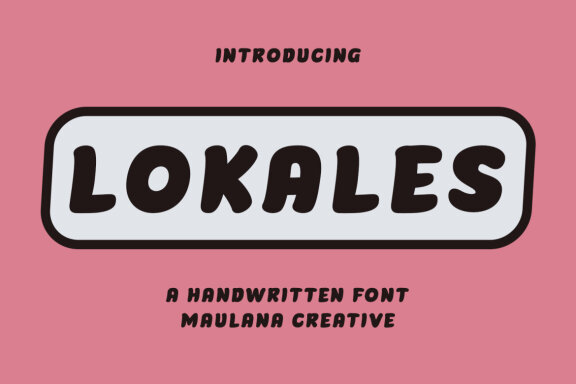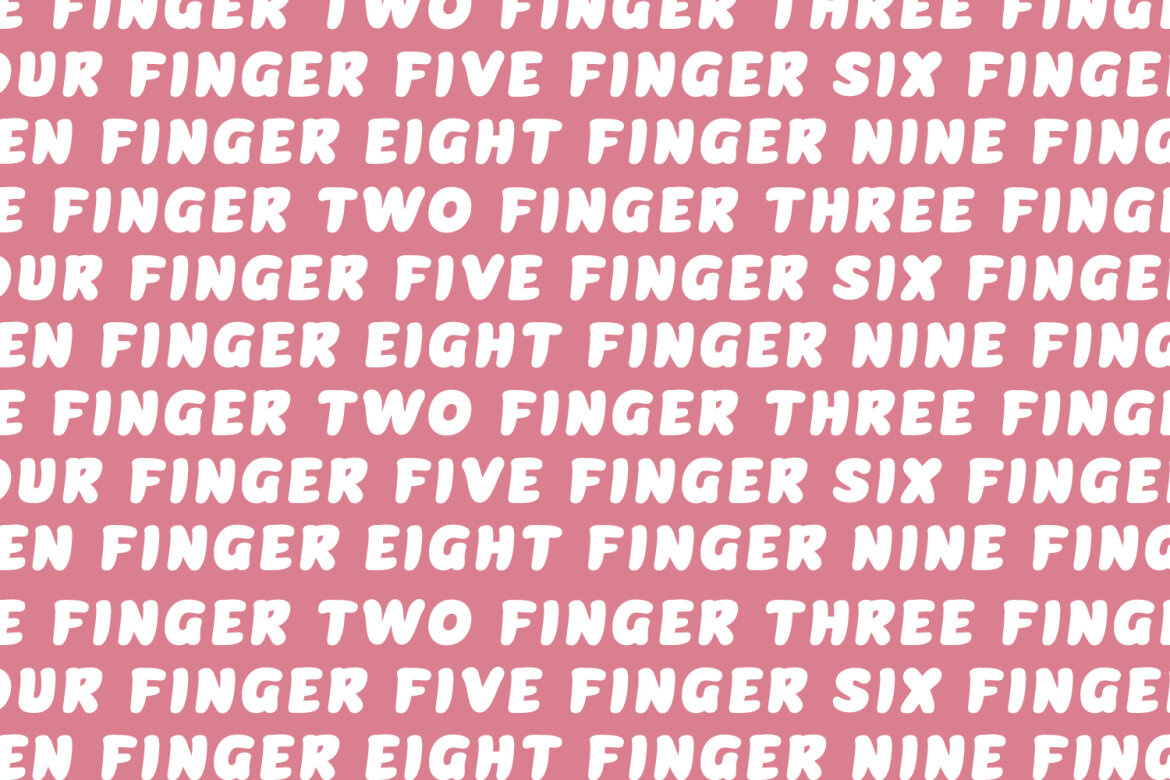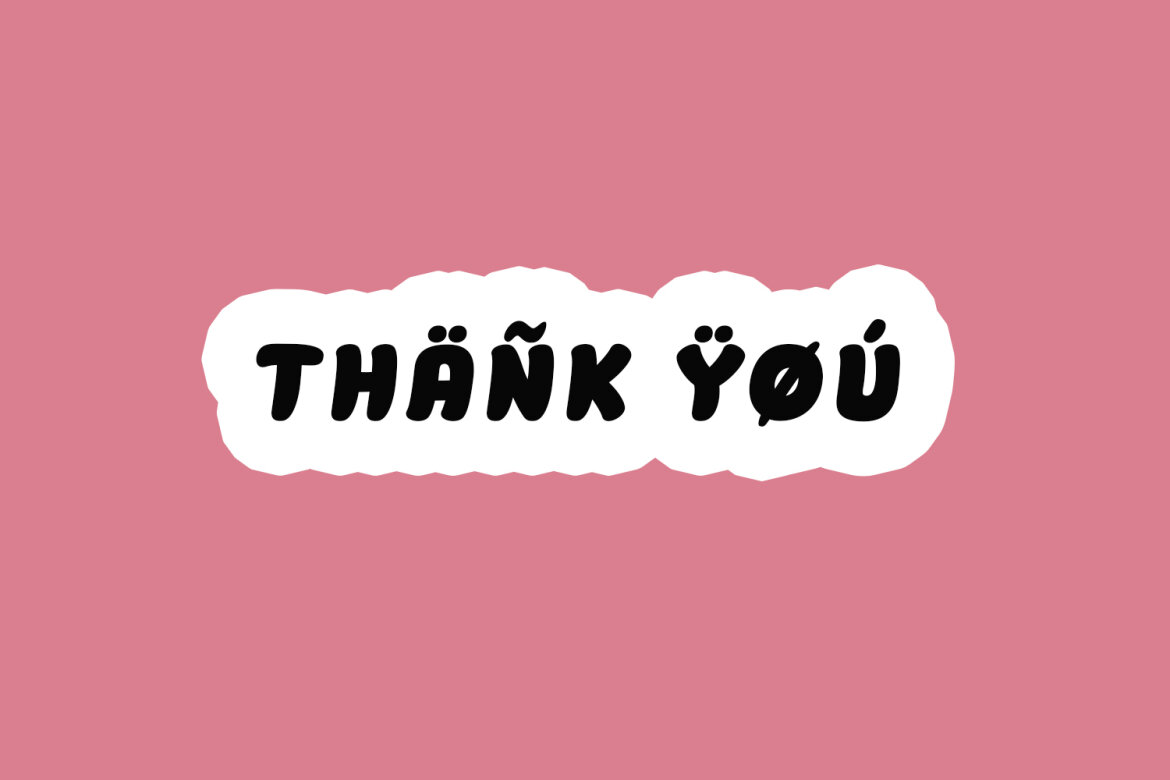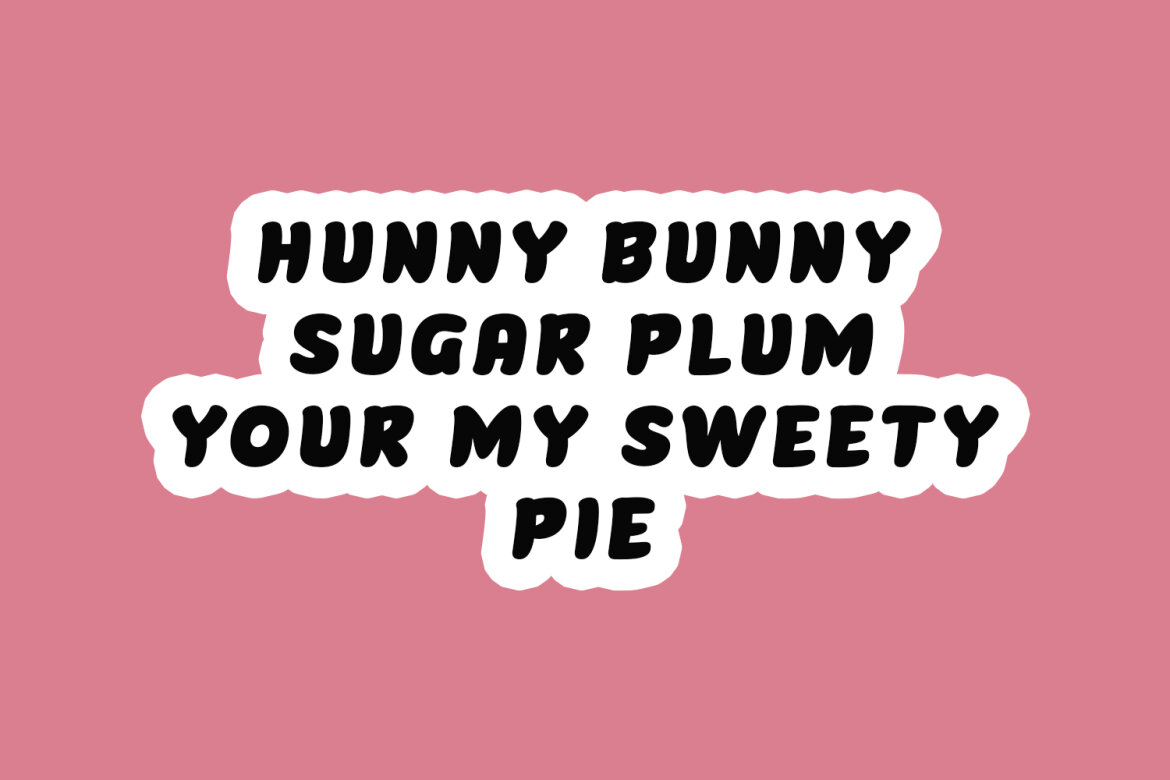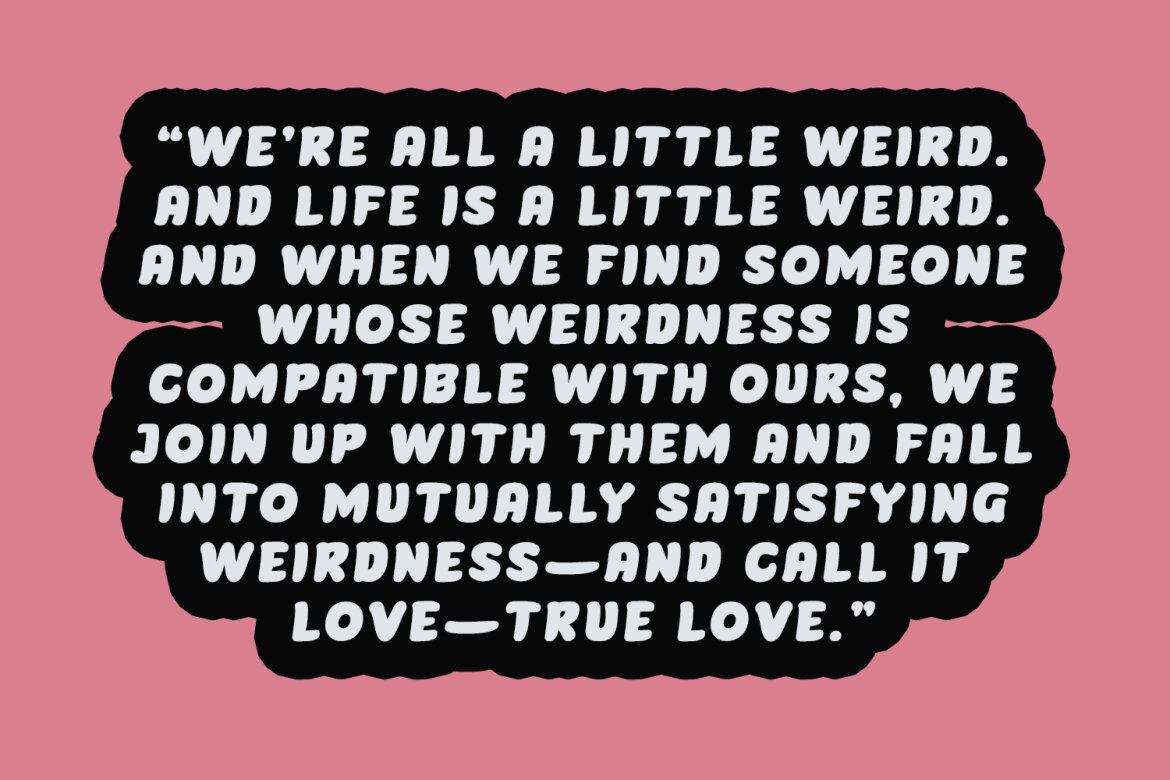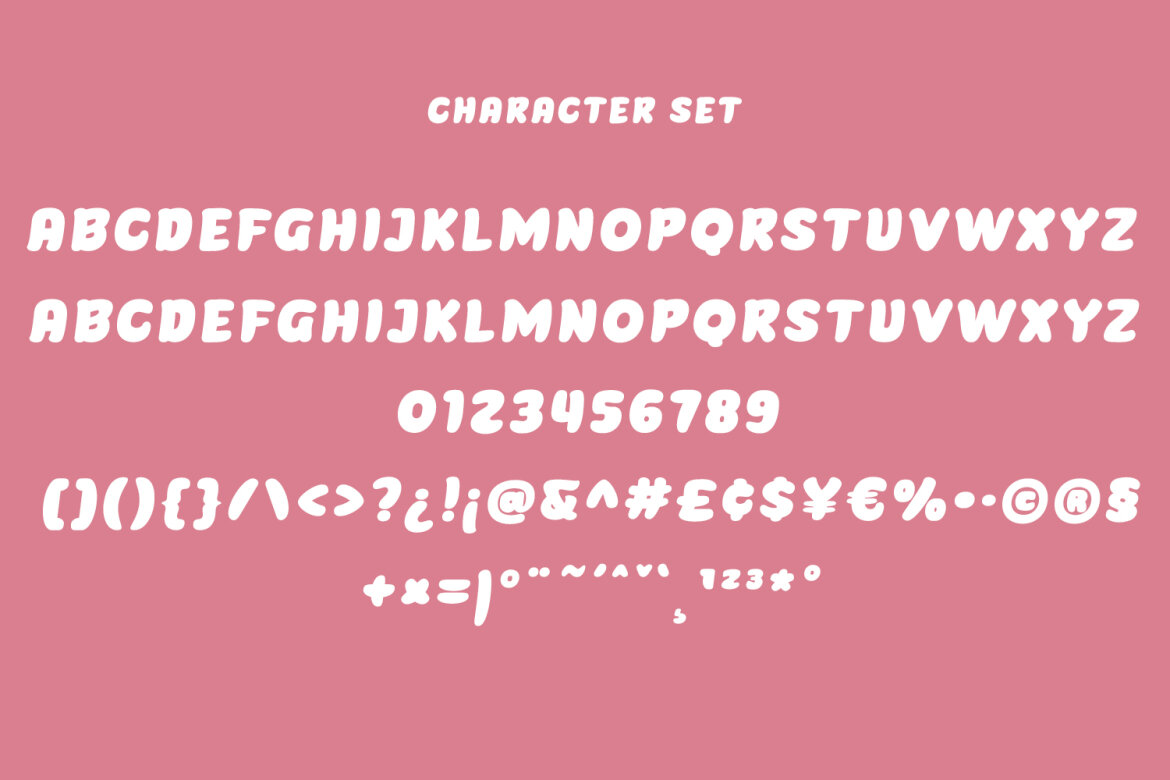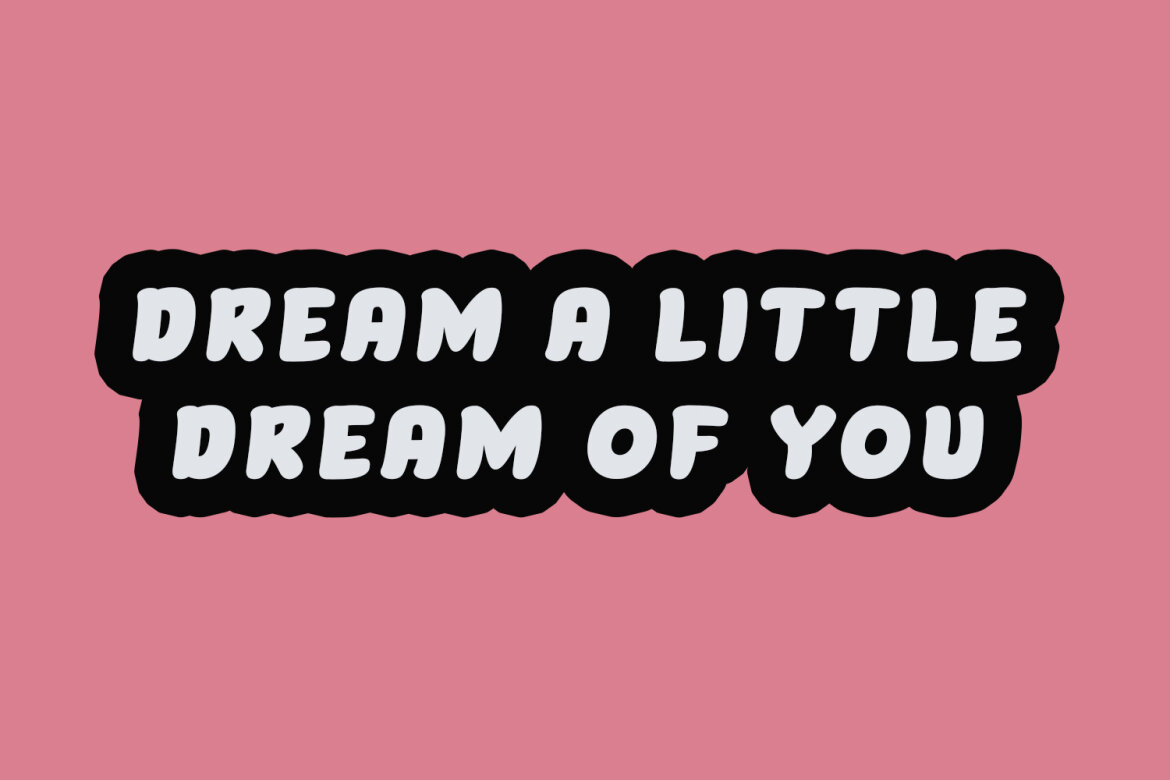
Lokales Handwritten FREE Font
Lokales
Lokales is a fat handwritten display font. With bold stroke, fun character with a bit of ligatures and alternates. To give you an extra creative work. Lokales font support multilingual more than 100+ language. This font is good for logo design, Social media, Movie Titles, Books Titles, a short text even a long text letter and good for your secondary text font with sans or serif. Make a stunning work with Lokales font.